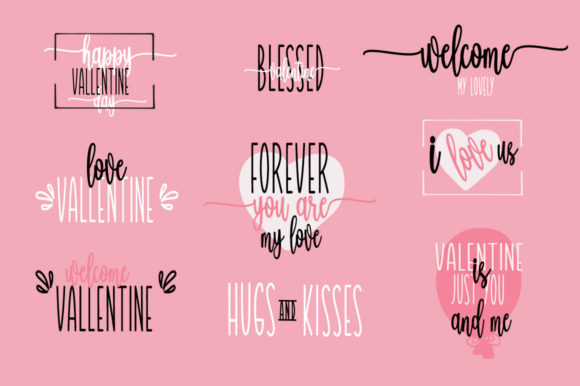
Wellcome Valentine Font
db-ku.com - Script & Handwritten -- Wellcome Valentine is a versatile duo font (handwritten and sans serif). It has beautiful and well balanced characters and as a result, it matches a wide pool of designs.